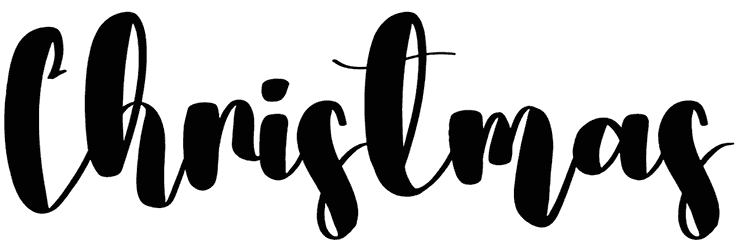
Christmas Font
The script calligraphy font Christmas is great for hand-lettering, branding, poster design, and other ways to show text. Christmas is a great option if you’re looking for a font that’s both chubby and cursive. Because it is a part of RB’s extensive font library, you are able to obtain it at this very moment and begin incorporating this Christmas font into your forthcoming projects.